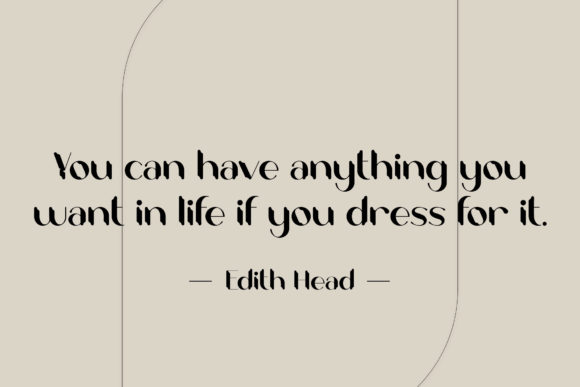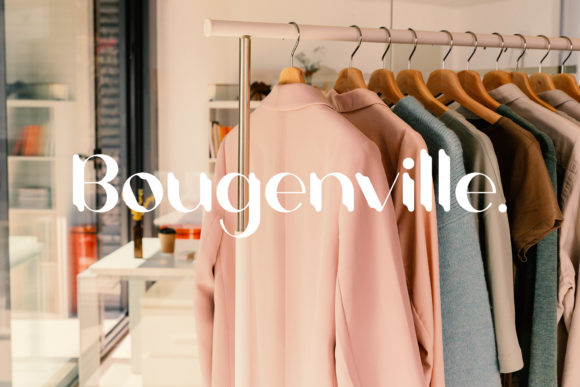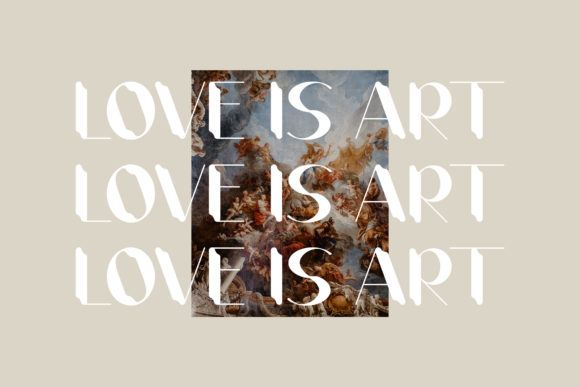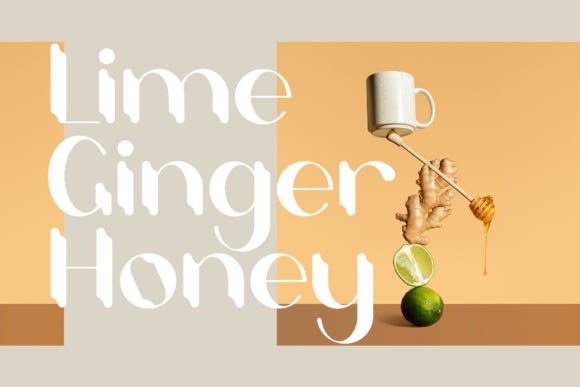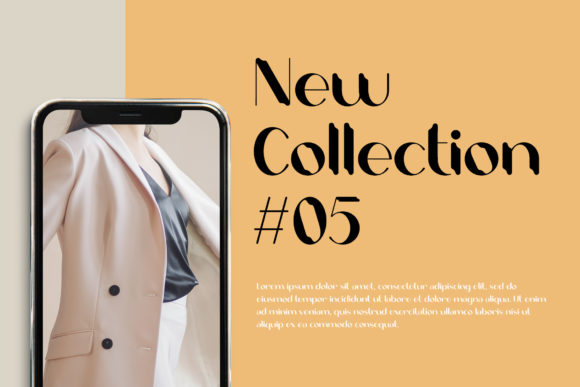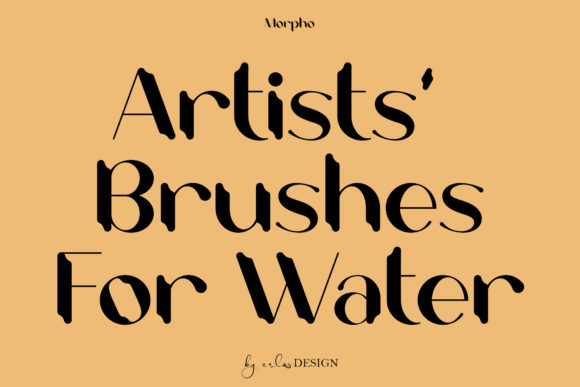
Unlocking the Potential of Your Creative Project with Morpho Font
Have you ever stared at a blank canvas, struggling to find the perfect font to bring your creative vision to life? It’s a familiar feeling for many designers, but what if you had the ultimate design resource at your fingertips? Enter the Morpho Font, a stunning display font that’s about to revolutionize your creative process.
Whether you’re working on a high-profile project or simply experimenting with a new idea, the Morpho Font is an invaluable addition to your design library. With its sleek, adaptable design and transparent background, this font is perfect for designers who demand high-quality visuals. And the best part? You can access it for free, making it an essential resource for any creative project.
About the Morpho Font
Morpho Font
- High-quality vector design: The Morpho Font is a high-quality vector design that can be scaled up or down without losing its clarity and precision.
- Unique and creative: The Morpho Font features a unique and creative design that can add a touch of elegance and sophistication to any creative project.
Honest Review: Morpho Font
Morpho Font is a versatile font that caught my attention due to its unique and elegant design. The free download makes it an attractive resource for designers working on a creative project, allowing us to experiment and incorporate it seamlessly into our designs.
The transparent background feature adds an extra layer of flexibility, allowing designers to layer it over various backgrounds without compromising the font’s quality. The high quality of the font is evident in its clean lines and precise typography, making it suitable for a wide range of design applications.
- Unique and elegant design that adds a touch of sophistication to any design project.
- High-quality typography that ensures readability and visual appeal.
- ⚠️ Limited character set may restrict its use in certain design applications.
- ⚠️ Some users may find the font’s style too ornate for simple designs.
Overall, Morpho Font is a solid addition to any designer’s toolkit, offering a high level of creativity and flexibility. With its elegant design and transparent background feature, it’s perfect for designers working on a creative project that requires a unique and high-quality font.
Tips for Getting the Most Out of Morpho Font
For the best results, use Morpho Font in conjunction with a free download of a high-quality background image. This will allow you to create stunning and visually appealing designs. Additionally, experiment with different font sizes and styles to add depth and interest to your designs.
Morpho Font is a versatile design resource that can be used in a variety of creative projects. Some common use cases include:
- Brochures
- Documents